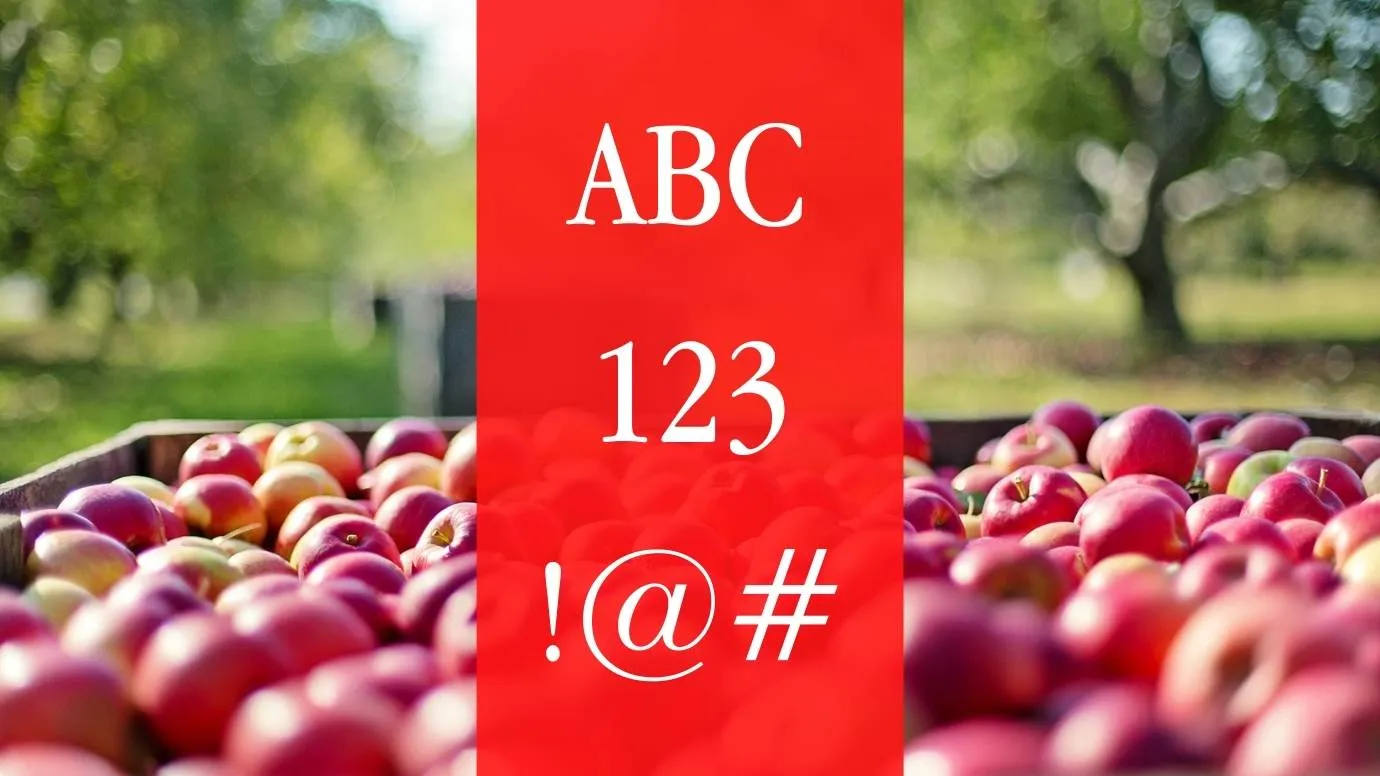
Now I am introducing to you an interesting and astonishing font. Apple Garamond Font is a simple and amazing font. This font is the primary font of the Apple Corporation. It is a basic Serif font. This font is used in book covers, titles, headlines, and logos.
This beautiful and unique font consists of 6 styles (Regular, Bold, Italic, Bold Italic, Light, Light Italic). It is containing 231 glyphs and 240 characters including upper- and lower-case alphabets, special characters, numbers, and currency signs.
There is also a similar font to the ITC Garamond font. The italic typeface gives a stylish look to your text with the pairing Droid Serif Font. You can use this font in shop/store names, posters, invitation cards, banners, fashion magazines, business cards, product labels, and many other editorial works.
Designer of Apple Garamond Font
This stunning and attractive font is designed by an American typeface and lettering designer Tony Stan in 1977 for Apple Corporation.
This font style is designed with exclusive and various styles. These attractive styles are a combination of different characteristics, including capital and small alphabets, glyphs, digits, symbols, punctuations, special characters, and with a large number of language support,
View of Apple Garamond Font
| Name | Apple Garamond Font |
| Style | Serif |
| Designer | Tony Stan |
| Foundry | Apple Corporation |
Is Apple Garamond Font good for titles?
Yes, this font is good for titles. You can use this font in posters, banners, newspaper headlines, book covers, shop names, product labels.
Is Apple Garamond Font Display font?
No, it is not a display font. It is a Serif font. This font is simple and clean.
Is Apple Garamond Font easy to read?
Yes, this font is neat and clean. You can read this font easily. This font is used in book writing, paragraph setting, and newspaper headlines.